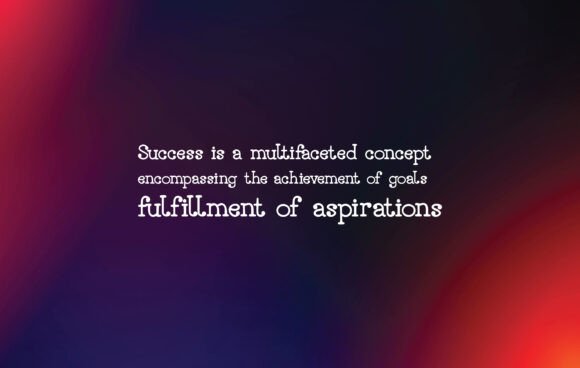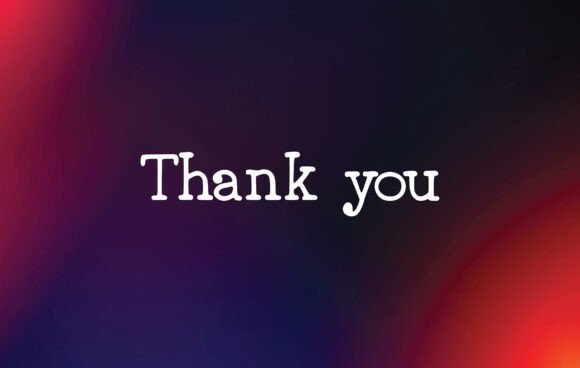
Unlocking Your Creativity with the Aliya Font
Have you ever been in the midst of a creative project, and suddenly, the perfect font pops into your head? For designers, those ‘aha’ moments are what make all the hard work worth it. And today, we’re excited to introduce you to the Aliya Font – a beautiful, handwritten font that can elevate your designs to new heights.
The Aliya Font is designed to bring a touch of elegance and sophistication to your creative projects. Whether you’re crafting eye-catching logos, branding materials, or inspirational quotes, this font is sure to make a lasting impression. As a valuable tool for designers, the Aliya Font offers endless possibilities for expression and creativity.
Aliya Font Key Features
- Font Family: Aliya, with multiple styles available (Regular, Bold, Italic, Bold Italic)
- Character Set: Supports a wide range of languages, including Arabic, Persian, and Urdu
- Unique Characteristics: Aliya Font features a unique blend of traditional and modern calligraphic styles, with intricate details and subtle flourishes
Aliya Font Review
I recently had the chance to work with the Aliya font, and I’m excited to share my honest review with you. ✨
- The Aliya font has a unique and elegant design that makes it perfect for creating a luxurious and sophisticated atmosphere.
- It comes in a variety of weights, from light to bold, giving you the flexibility to choose the perfect style for your project.
- The font is highly legible, making it easy to read and understand even at smaller sizes.
- The Aliya font is highly customizable, allowing you to adjust the spacing, letter spacing, and other parameters to fit your design needs.
While the Aliya font is a great choice for many projects, it does come with a few limitations.
- ⚠️ The font may not be suitable for body text, as it can be quite ornate and may not provide the best reading experience.
- ⚠️ The font is not as versatile as some other fonts, and may not work well in certain design contexts.
Overall, I’m really impressed with the Aliya font. It’s a beautiful and elegant design that can add a touch of luxury to any project. While it may not be suitable for every project, it’s a great choice for those looking to create a sophisticated and high-end atmosphere.
Aliya Font is particularly suitable for headings, titles, and short paragraphs in Canva designs.
Aliya Font can be used for a variety of purposes in Adobe applications, including creating logos, headings, and text-based artwork.
Aliya Font is suitable for presentations, reports, and documents where a clean and elegant font is desired.
Tips for Getting the Most Out of Aliya Font
Aliya Font is a versatile font that can be used in a variety of contexts. Here are some tips for getting the most out of it:
- Use Aliya Font for headings and titles to create a consistent and professional look.
- Use Aliya Font in conjunction with other fonts to create a unique and stylish design.
Alternatives to Aliya Font for Designers
Lato Font is a modern sans-serif font designed by Łukasz Dziedzic. It is ideal for use in digital products, such as websites and mobile applications, due to its clean and elegant design. Lato Font is a great alternative to Aliya Font when you need a font that is highly legible and works well in both print and digital formats.
Comparison: Lato Font has a more geometric and modern feel compared to Aliya Font, which has a more traditional and elegant design. Lato Font is also more versatile and can be used in a wider range of applications.
Open Sans Font is a popular sans-serif font designed by Steve Matteson. It is ideal for use in digital products, such as websites and mobile applications, due to its clean and neutral design. Open Sans Font is a great alternative to Aliya Font when you need a font that is highly legible and works well in a variety of contexts.
Comparison: Open Sans Font has a more minimalist and neutral design compared to Aliya Font, which has a more elegant and traditional feel. Open Sans Font is also more widely used and supported by many devices.